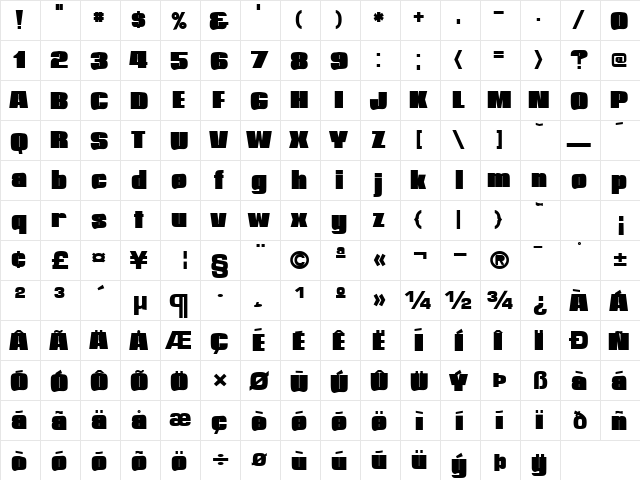
GraphicShoesText113 Bold
Design Context for GraphicShoesText113 Typeface
GraphicShoesText113 is a composed and adaptable typeface that performs quietly and consistently across a wide range of design contexts. Its bold stroke weight gives it real presence on the page.